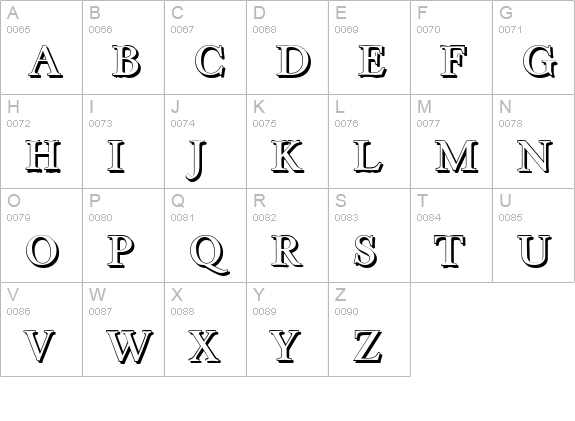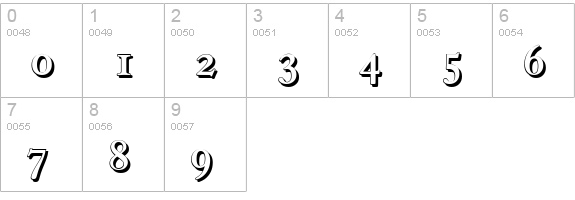
CasablancaShadow-Regular Font Details
CasablancaShadow-Regular is the standard, neutral variant in the CasablancaShadow typeface family \xE2\x80\x94 well suited to general body text, paragraphs, and standard typographic work.
CasablancaShadow-Regular font is a stylish and elegant typeface that exudes sophistication and charm. With its unique shadow effect, this font adds a touch of drama and flair to any design project. Its sleek lines and intricate details make it perfect for creating eye-catching headlines, posters, and branding materials. What sets CasablancaShadow-Regular font apart is that it is available for free download at FontsMarket.com. This means that you can easily access this beautiful font without any cost, making it a valuable addition to your font collection. Whether you're working on a personal or commercial project, CasablancaShadow-Regular font is sure to elevate your designs and leave a lasting impression.